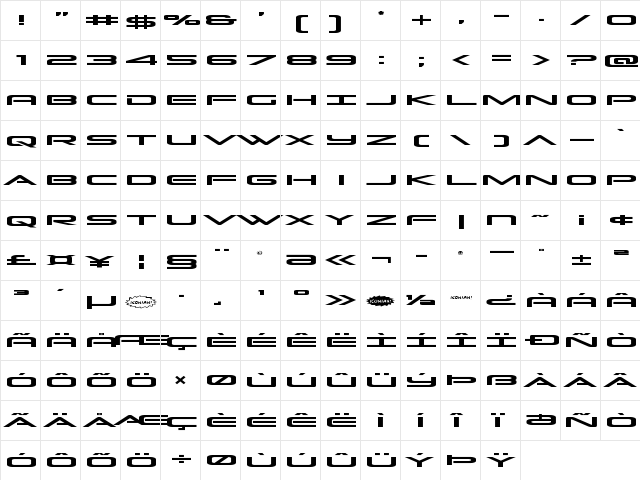
Grand Sport Expanded Expanded
Design Context for Grand Sport Expanded Typeface
Grand Sport Expanded has the bold swagger of sports branding: strong, assertive letterforms designed to dominate headlines and jerseys alike.
A natural choice for gym brands, fantasy sports, jersey lettering, and action-driven headlines.
Pro Tip: Use Grand Sport Expanded in all-caps headlines where its athletic energy can fully express itself. Pair with a solid, simple sans for supporting text.